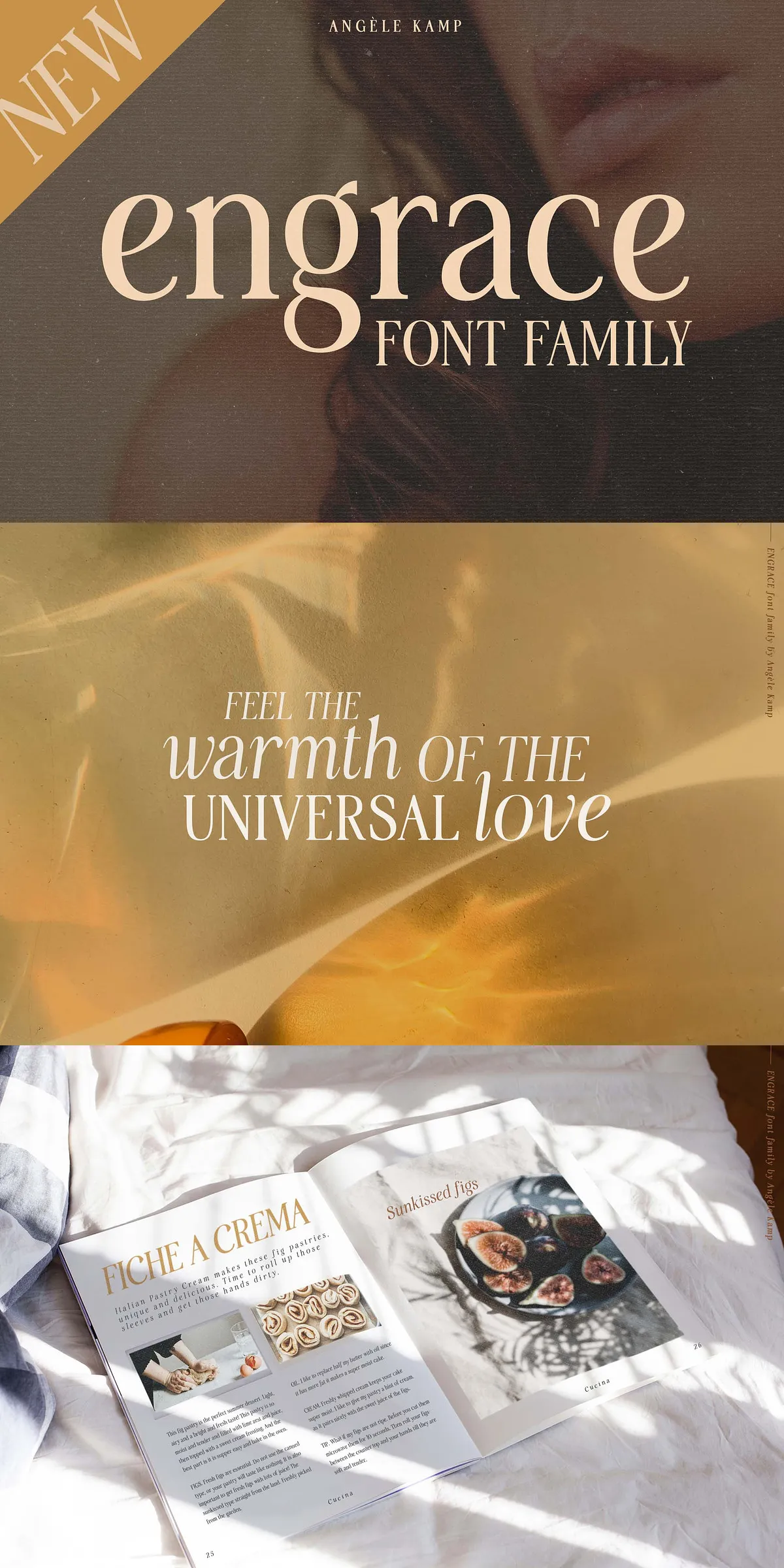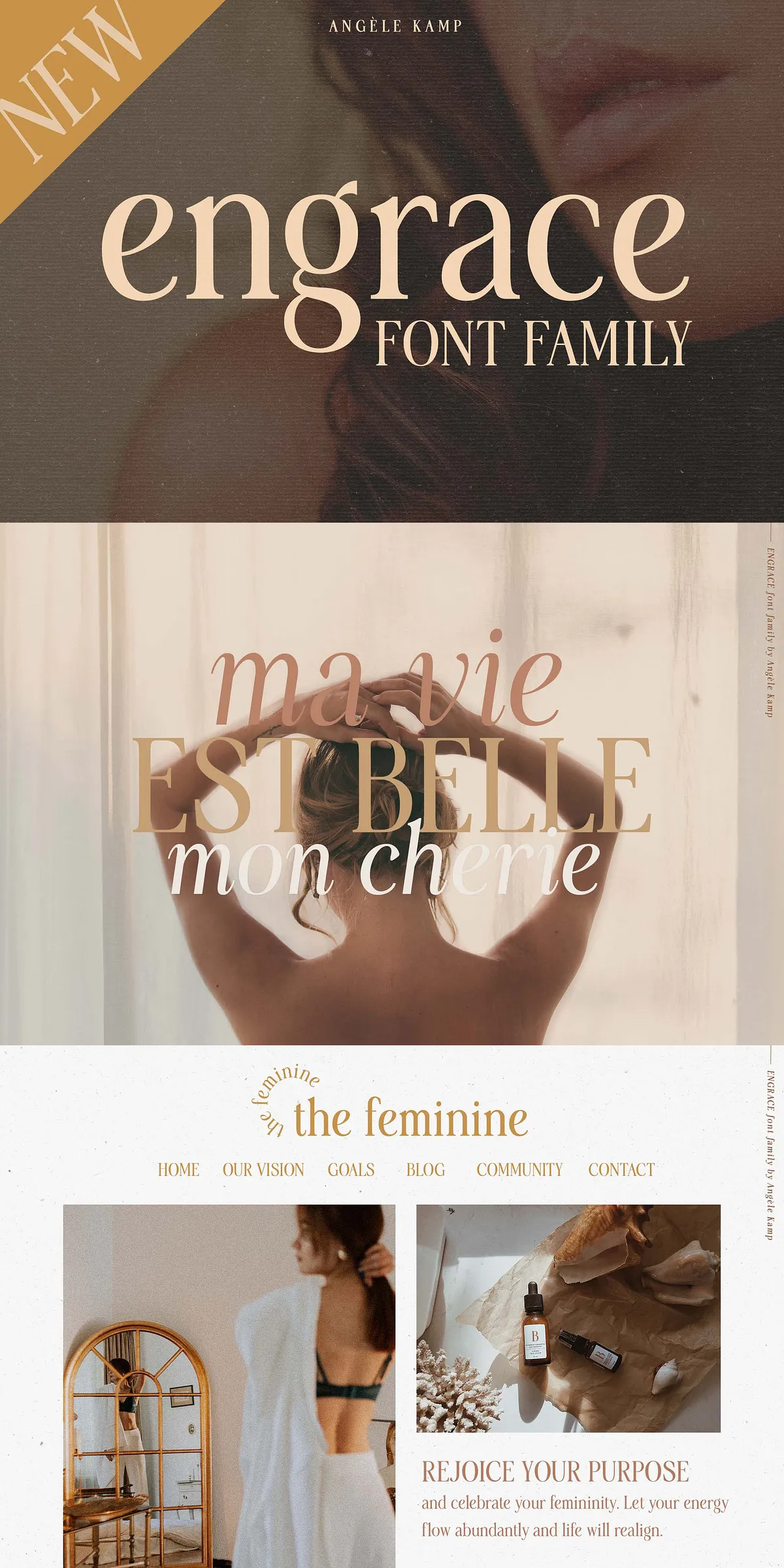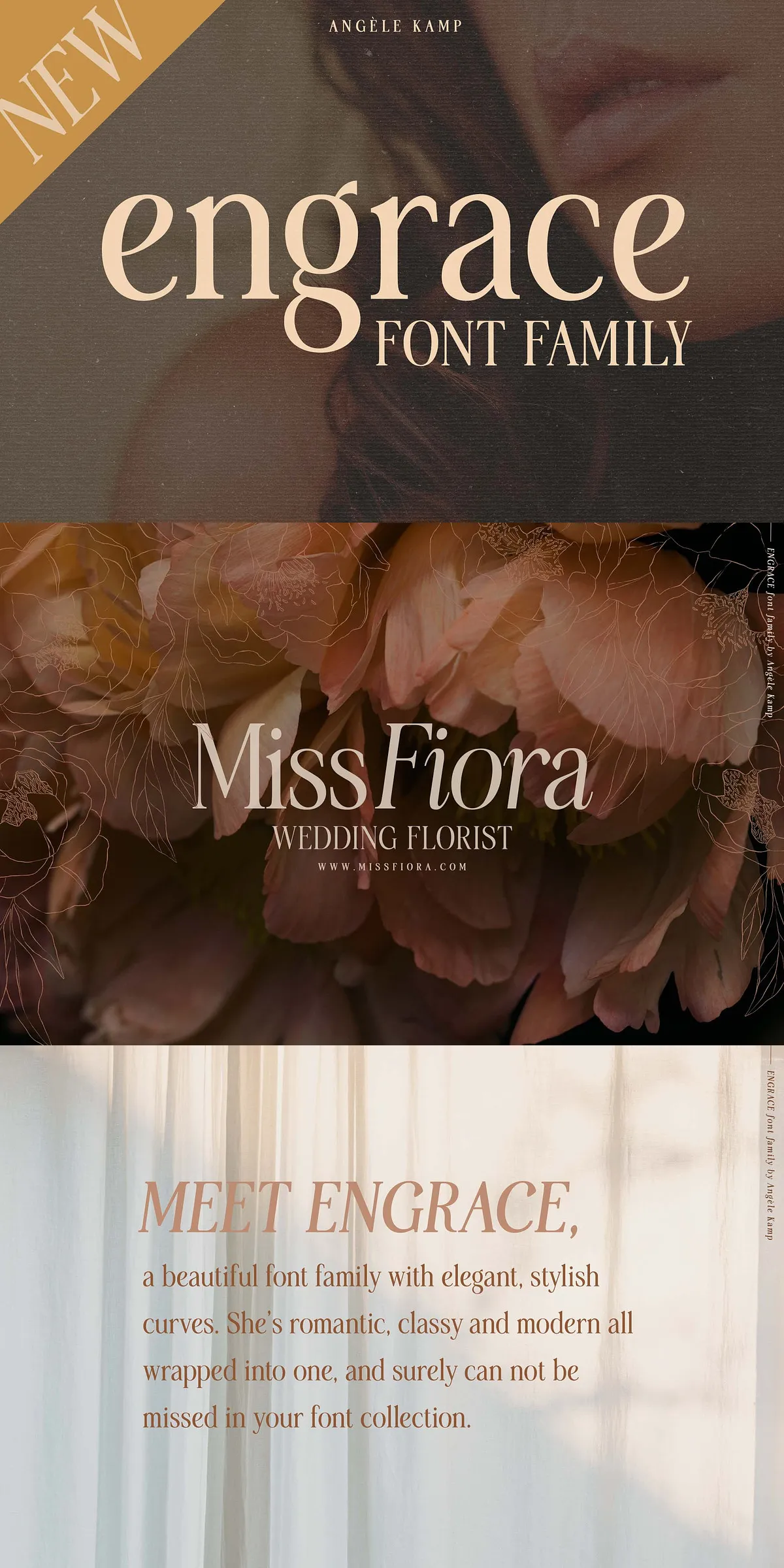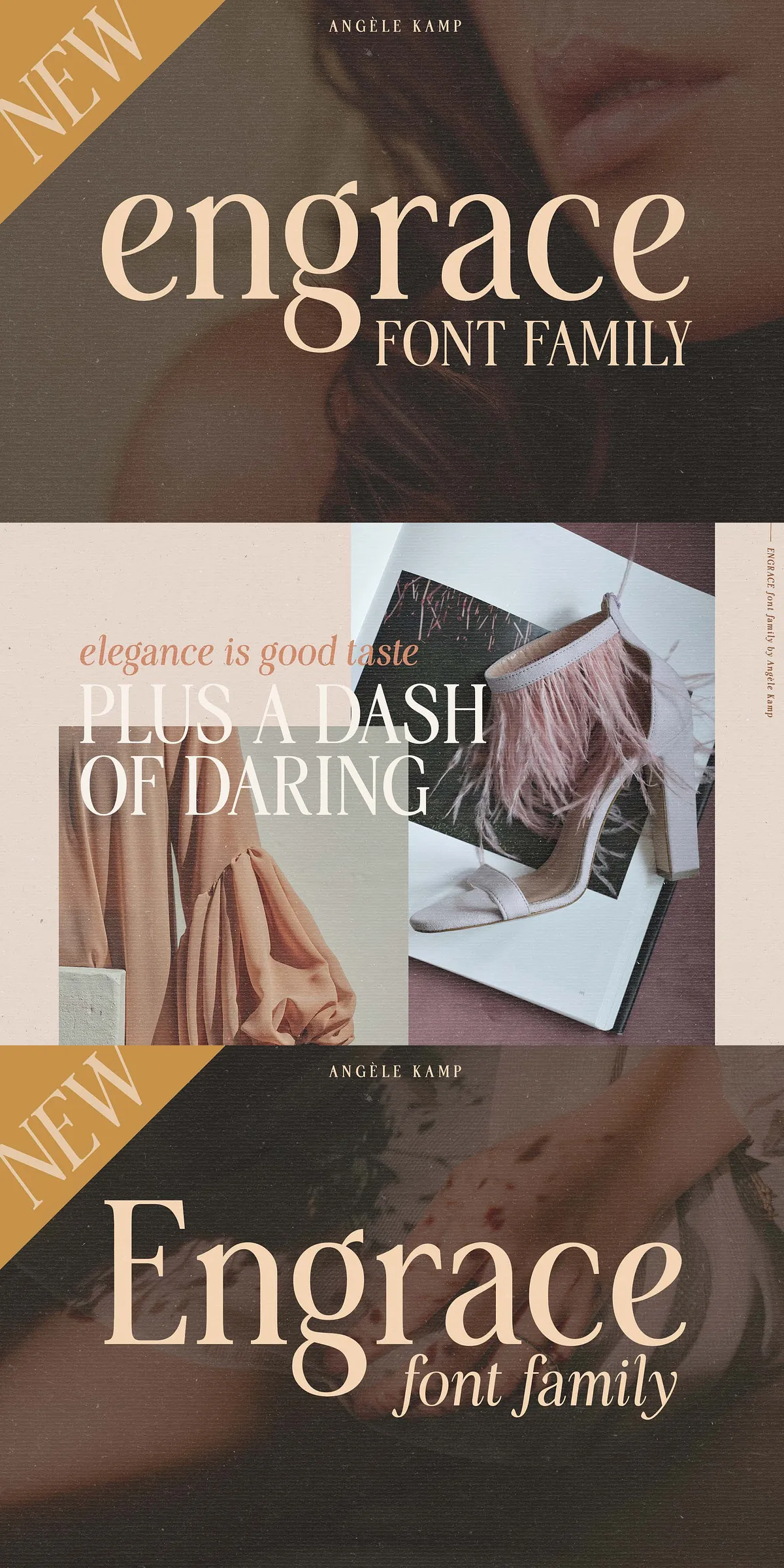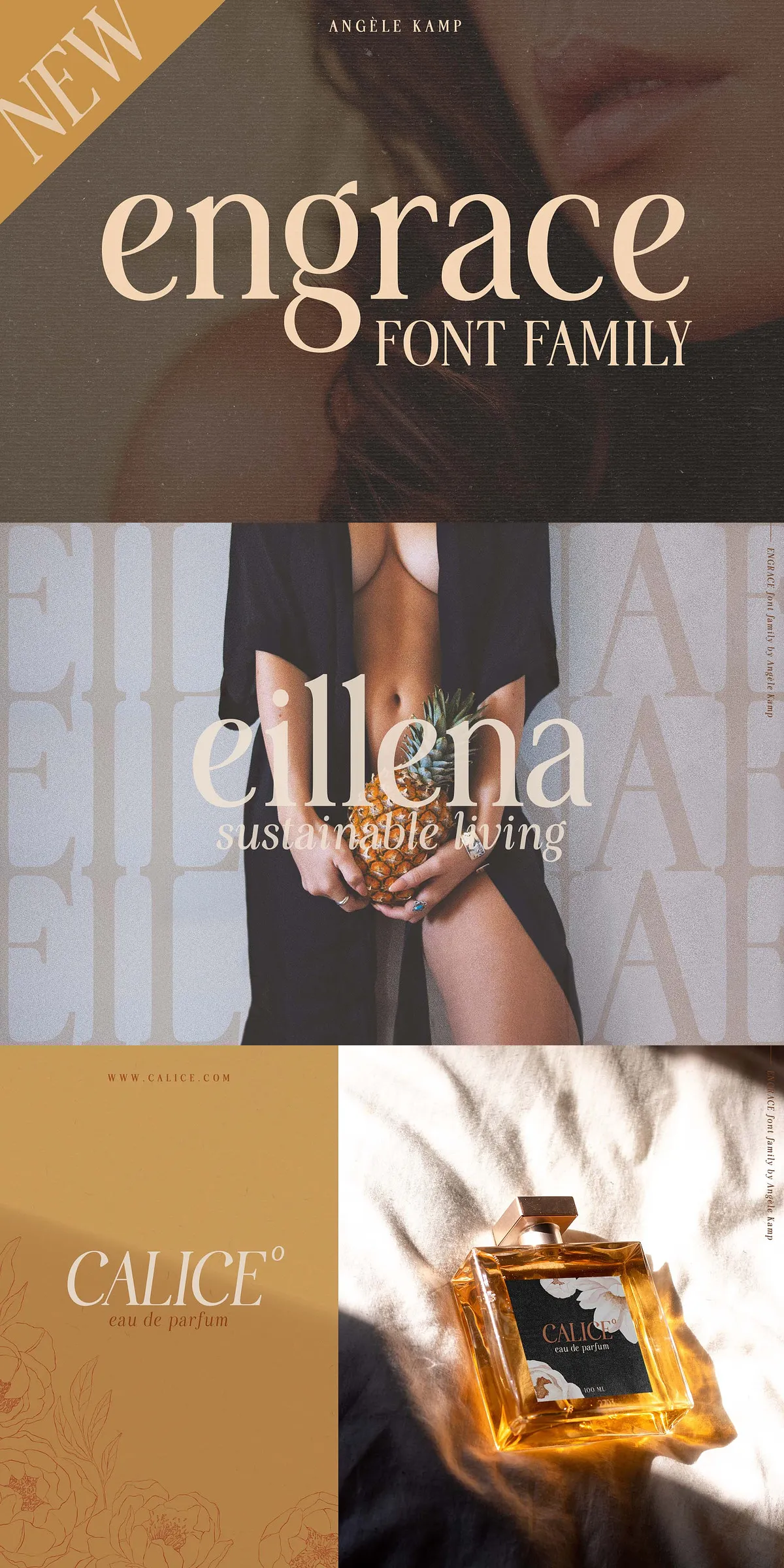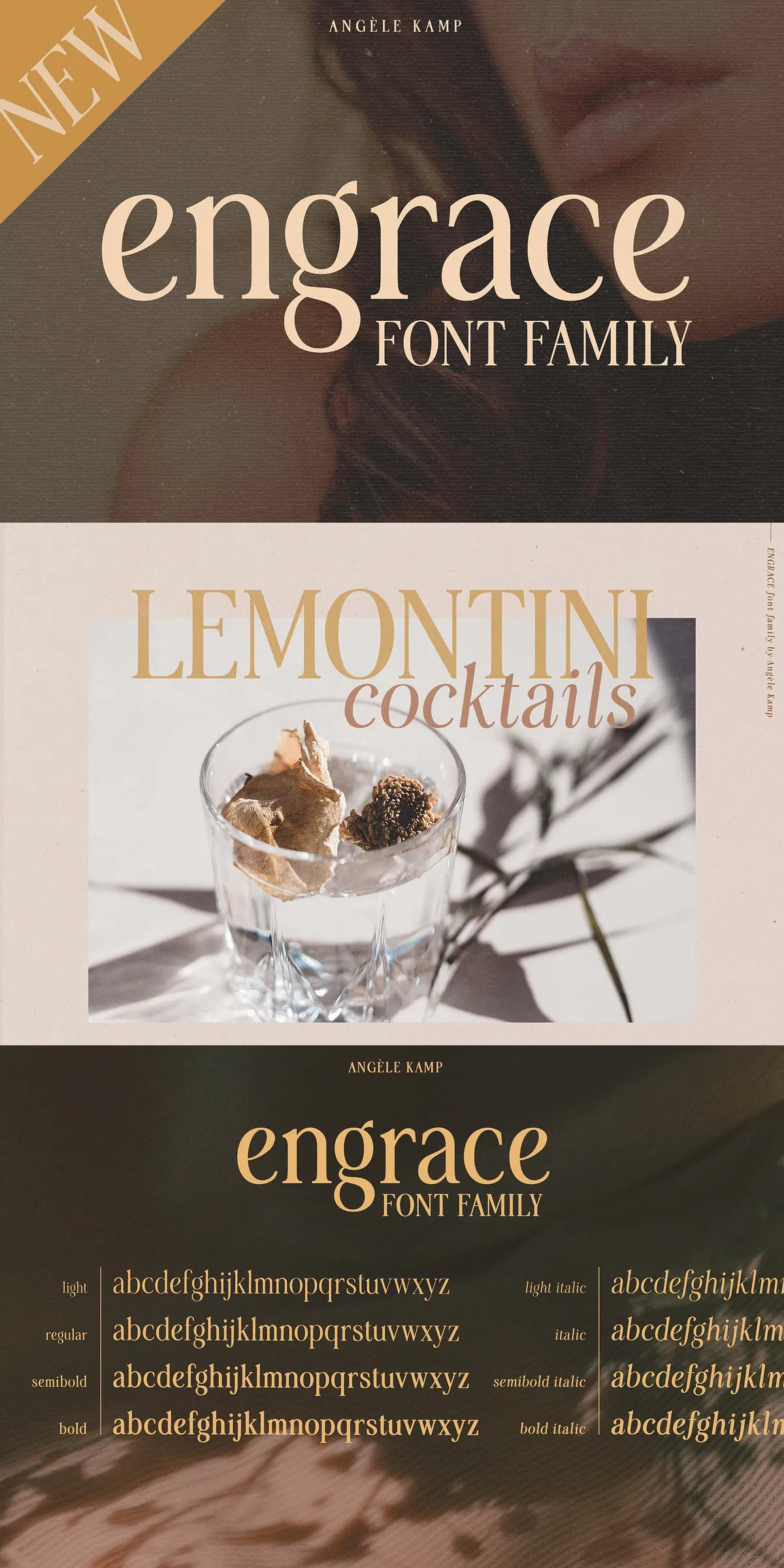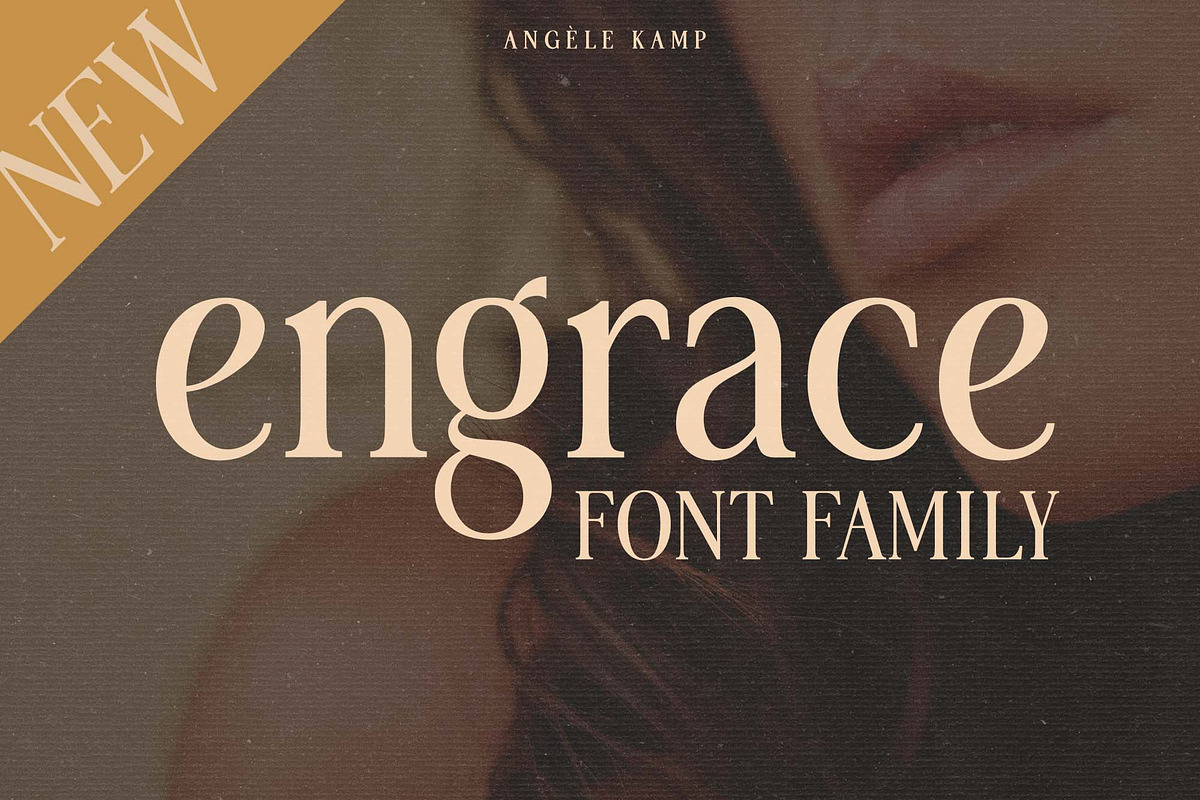
Step into a world of refined beauty with Engrace, a luxury serif font family that redefines sophistication. Designed for those who appreciate the finer details, Engrace blends romantic curves, timeless structure, and contemporary grace into a single, breathtaking typeface. Whether you’re crafting a luxury brand identity, a high-end wedding invitation, or a fashion editorial spread, Engrace doesn’t just write — it whispers elegance with every stroke.
The Essence of Luxury: A Font Family Built for the Discerning Designer
Engrace isn’t just a font — it’s a statement of taste. This 8-weight serif family includes four regular weights (Light, Regular, Medium, Bold) and four italic variants (Light Italic, Regular Italic, Medium Italic, Bold Italic), all available in multiple formats: OTF, WOFF, and Variable TTF. With this depth, you gain complete creative freedom to build contrast, rhythm, and emotional tone in your typography.
Thanks to its **variable font technology**, Engrace responds to your needs instantly. Adjust the weight, width, or optical size with a single slider — no need to switch between multiple files. This dynamic flexibility makes Engrace perfect for responsive web design, complex layouts, and projects that demand both precision and fluidity.
Designed for the Art of Expression: Curves That Speak
Every character in Engrace is sculpted with intention. The soft, flowing curves are inspired by hand-lettering and classical typographic traditions, yet they feel refreshingly modern. The delicate serifs, elegant terminals, and balanced x-height create a rhythm that soothes the eye and captivates the viewer.
Use the light variants for understated luxury, the bold versions to dominate the page, or mix regular and italic styles for visual storytelling. Engrace thrives in contrast — pair a Light Italic headline with a Dark Regular body text to create a luxurious typographic hierarchy that feels both curated and intuitive.
Perfect for Designers Who Value Beauty & Functionality
Engrace isn’t just beautiful — it’s built for real-world design. Its exceptional spacing, consistent proportion, and fully tested glyphs ensure clean, professional results in every application.
Professional-Grade Features for Every Project
- High-Definition Glyphs: Over 1,500 carefully designed characters, including small caps, ligatures, fractions, stylistic alternates, and case-sensitive forms.
- Multilingual Support: Full compatibility with Latin, Latin Extended, Greek, and Cyrillic scripts — ideal for international branding and multilingual content.
- Advanced OpenType Features: Access to contextual alternates, discretionary ligatures, and stylistic sets for nuanced typographic control.
Rooted in Artistry: The Designer Behind Engrace
Created by Angele Kamp, a visionary designer with a profound passion for nature, watercolor art, and handcrafted lettering, Engrace reflects a soulful creative journey. Angele’s work has been embraced by global brands, wedding planners, and independent designers who value elegance with authenticity.
Her signature style — feminine, floral, and deeply expressive — shines through in every letter of Engrace. The font is not just a tool; it’s an extension of her artistic philosophy: blending natural beauty with modern sophistication.
Use Engrace Where Beauty Matters Most
- Wedding Invitations & Stationery: Make your wedding feel timeless, romantic, and unforgettable.
- Luxury Branding & Packaging: Position your product as premium with refined, high-class typography.
- Fashion & Editorial Design: Elevate magazine covers, lookbooks, and campaign visuals with a touch of haute couture.
- Personal & Creative Projects: Bring your passion projects to life with a font that feels as personal as it is powerful.
- Website Headlines & Callouts: Create instant visual appeal with web-ready, responsive typography.
Own the Moment — Design with Purpose, Design with Engrace
Engrace is more than a font. It’s a commitment to quality, a celebration of artistry, and a catalyst for emotion. It turns ordinary text into extraordinary storytelling — whether it’s a single word on a card or a full brand narrative.